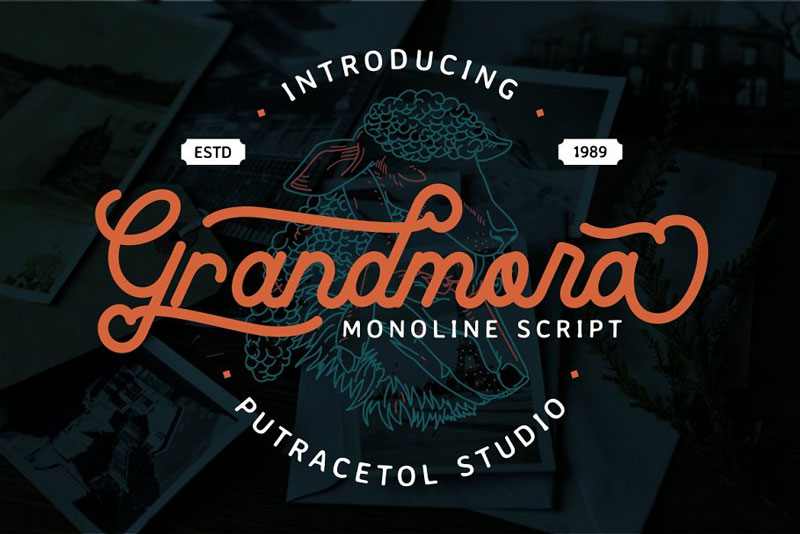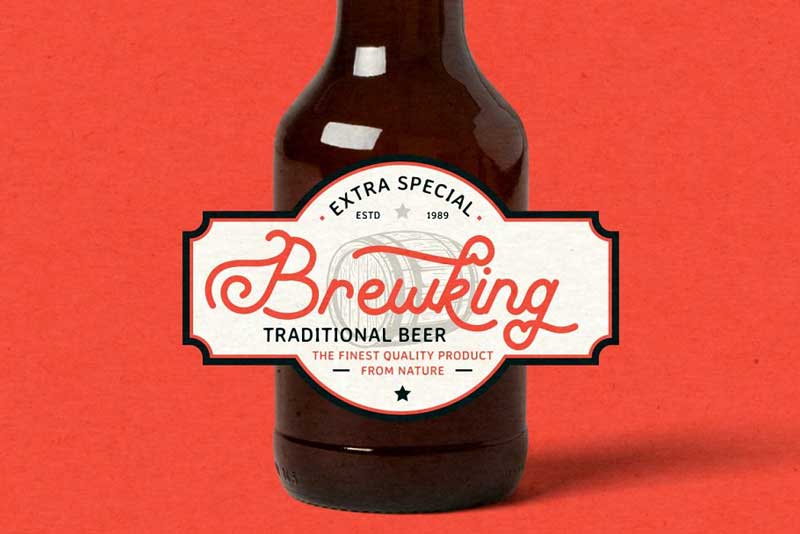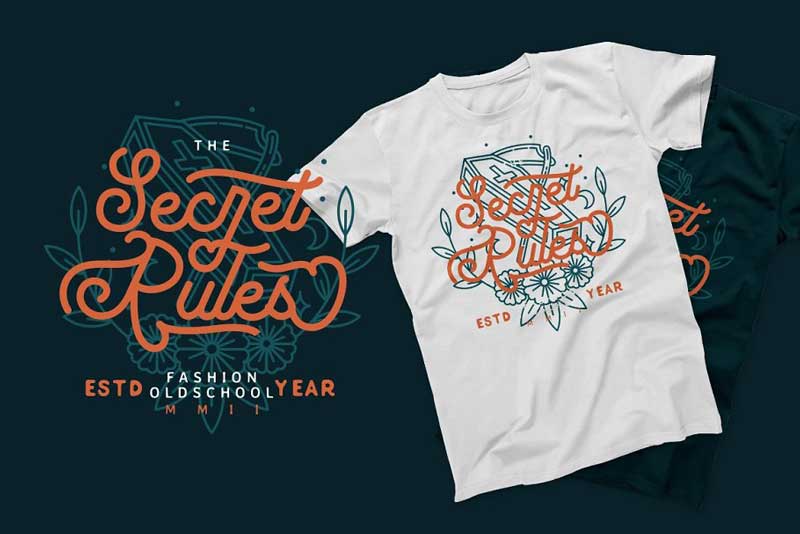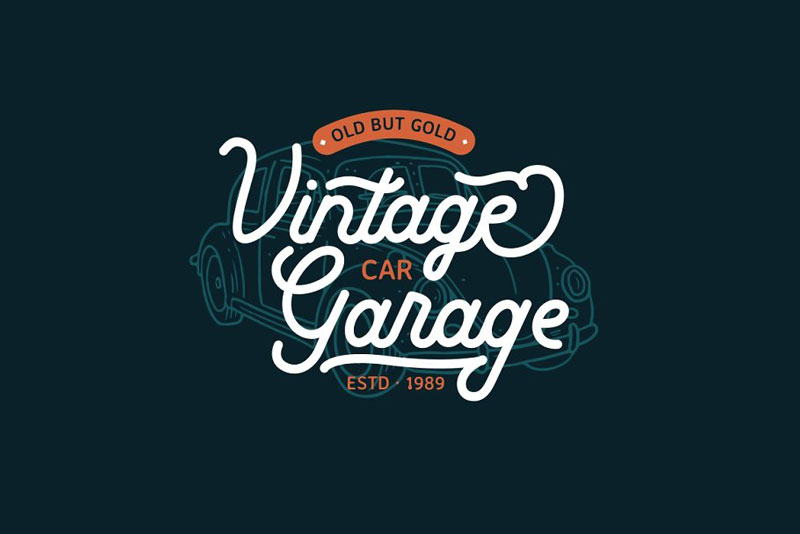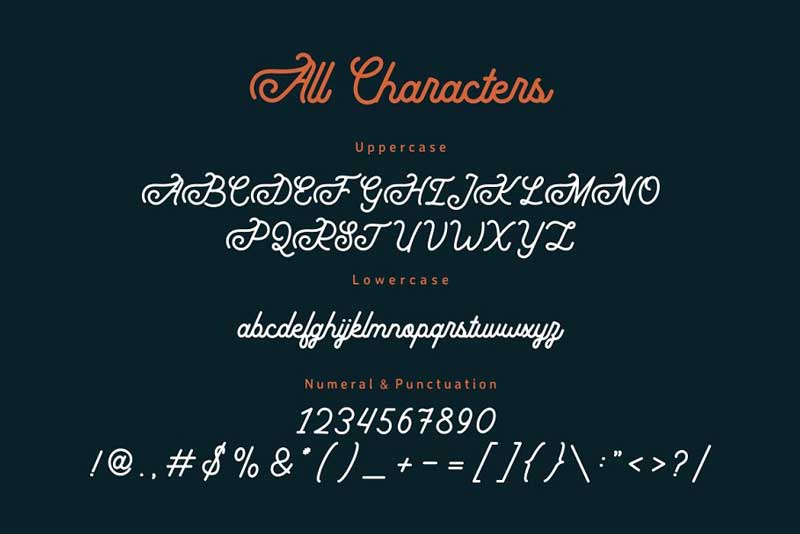
Introducing Grandmora – Monoline Script Font 4689511. A monoline script typeface with a touch of classic style. Grandmora is perfect for vintage design, badge, logos, t-shirt, poster, branding, packaging, signage, book cover and so much more!
Come with the Opentype feature with a lot of alternates, it helps you to make great lettering. This font is also supported by multi-language.